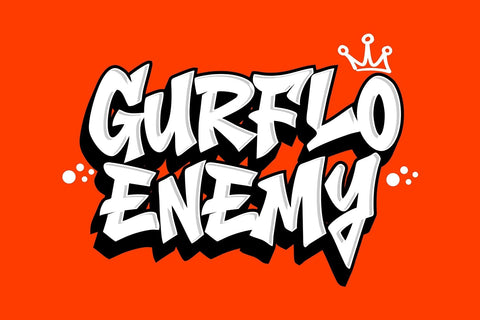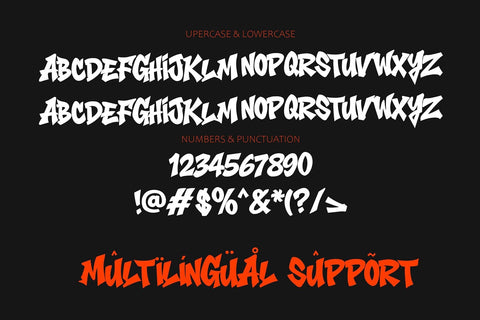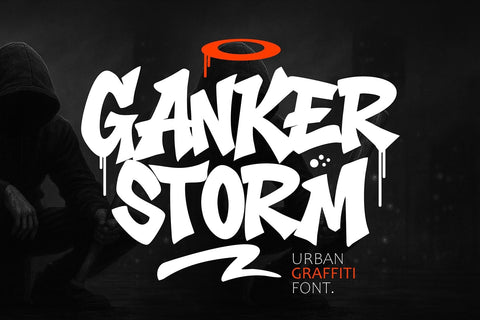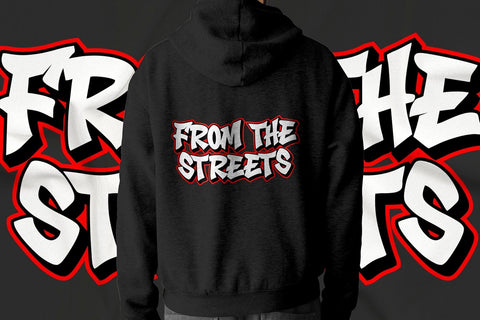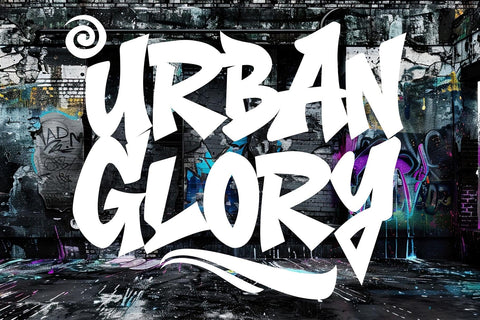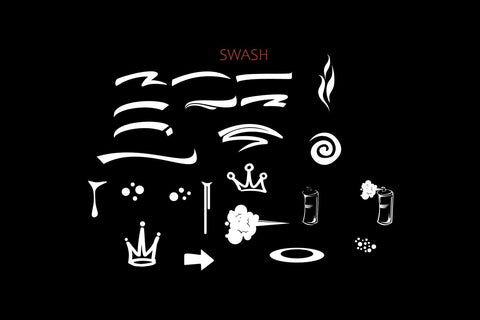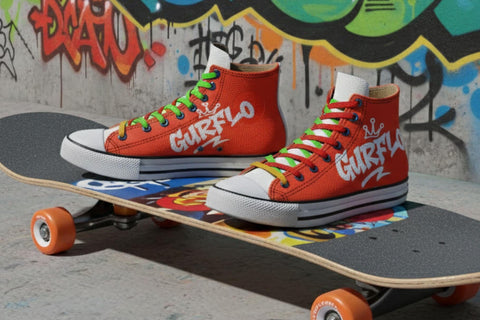
Ganker Storm - Simple Graffiti Font with Swash
Ganker Storm is a wild graffiti font created for designers who want explosive energy and authentic street character in their work. With bold aggressive strokes, sharp angles, and a natural brush rhythm, Ganker Storm captures the raw motion of real tagging and street lettering. The letter shapes feel fast, loud, and expressive, making it the ideal choice for high-impact visual projects.
This font comes with uppercase letters, numbers, punctuation, multilingual support, and a complete Swash version, giving you maximum flexibility for eye-catching designs. The swashes add extended motion strokes and powerful accents that enhance the graffiti effect, allowing you to create dynamic, layered, and dramatic compositions.
Its bold and rugged brush structure ensures excellent readability while maintaining a fierce graffiti identity. Whether used alone or combined with the Swash version, Ganker Storm delivers aggressive style and urban authenticity to every layout.
The font is designed to feel fresh, rebellious, and full of attitude—ideal for designers who want to push boundaries and create visual impact.